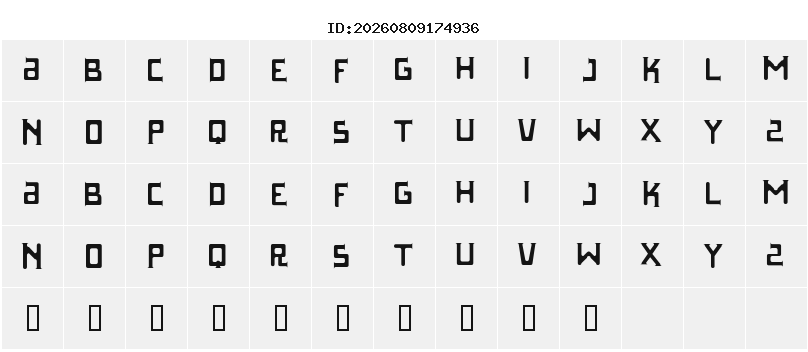
Parasight Preview
• Font Name: Parasight
• Full Font Name: Parasight
About Parasight.ttf
Parasight.ttf is a modern, elegant sans-serif font designed for ultimate readability and visual harmony. Perfect for branding, headlines, web design, and print materials.